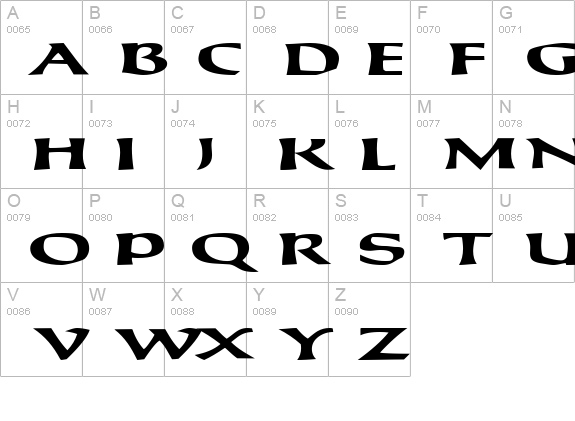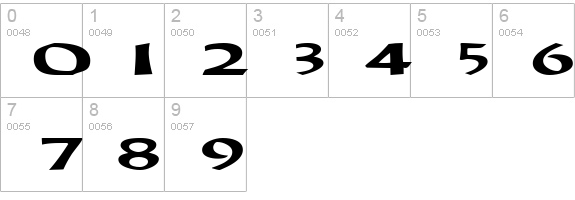
CayaugaSCapsSSK Bold Font Details
CayaugaSCapsSSK Bold is a strong, high-contrast variant in the CayaugaSCapsSSK typeface family \xE2\x80\x94 well suited to headlines, attention-grabbing titles, and strong calls-to-action.
CayaugaSCapsSSK Bold font exudes a sense of boldness and sophistication, making it perfect for headings, titles, and other design projects that require a strong visual impact. Its clean lines and sharp edges give it a modern and professional look that is sure to make your text stand out. This versatile font is ideal for a wide range of design applications, from branding and marketing materials to web design and print projects. With its bold weight and stylish appearance, CayaugaSCapsSSK Bold font commands attention and adds a touch of elegance to any project. Best of all, CayaugaSCapsSSK Bold font is freely available to download at FontsMarket.com, making it easy to incorporate into your designs without breaking the bank. Whether you're a seasoned designer or just starting out, this font is a valuable addition to your toolkit. Download it today and elevate your designs with the striking presence of CayaugaSCapsSSK Bold font.